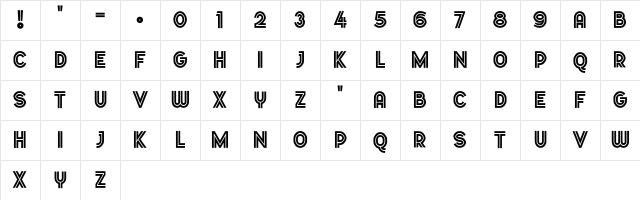
Dopest by MARSNEV Light Free Font
Design Context for Dopest by MARSNEV
Dopest by MARSNEV is a composed and adaptable typeface that performs quietly and consistently across a wide range of design contexts. Its slender proportions lend an understated elegance to any composition.